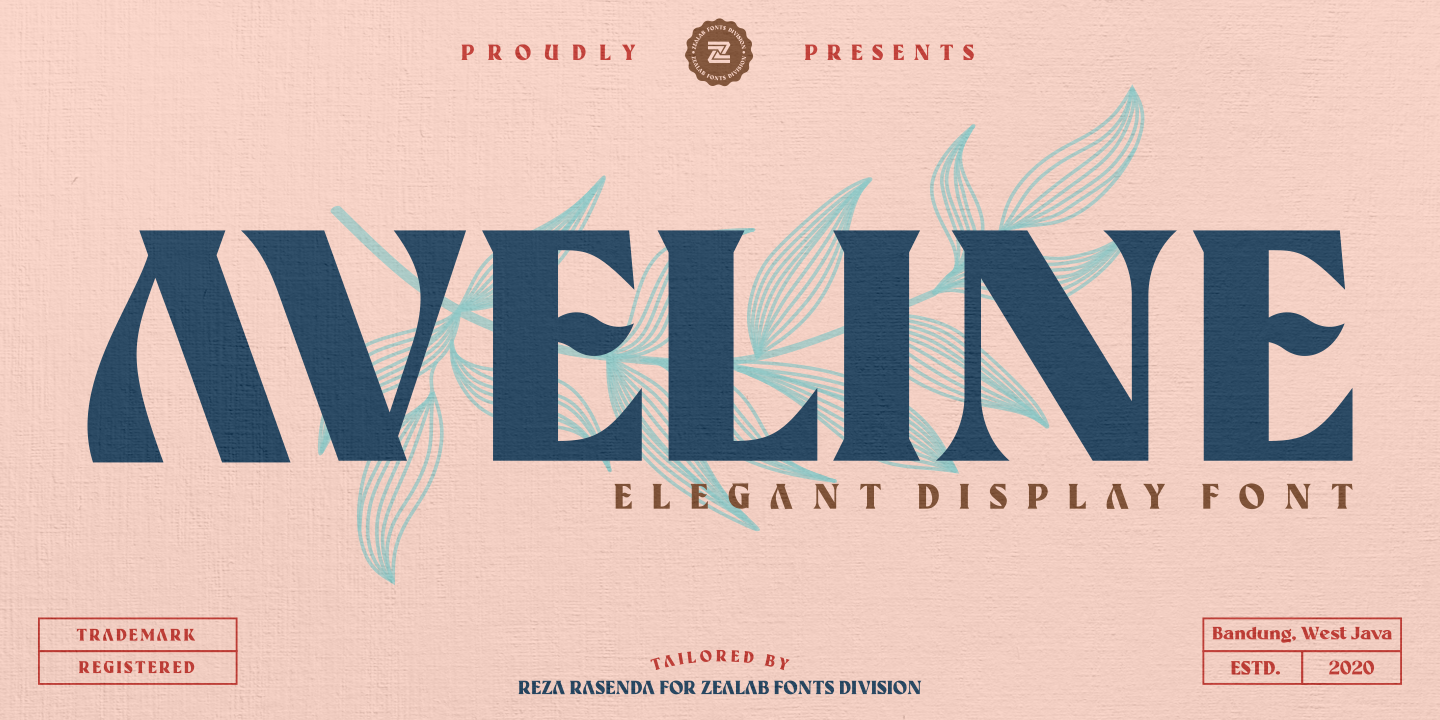
Aveline Font is perfect for romantic wedding invitations, feminine branding projects, beauty product packaging, fashion blogs, boutique logos, greeting cards, social media posts, book covers, and elegant poster designs.
What makes Aveline Font exciting is its graceful curves and delicate character details that evoke femininity and sophistication. The flowing letterforms create a sense of elegance and romance, making every word appear beautifully crafted and visually appealing.
Aveline Font family includes regular, bold, light, and script variations, plus decorative alternates and ligatures that provide endless creative possibilities for personalized typography designs.
Create stunning visual impact with the romantic charm of Aveline Font Free Download. This exquisite typeface captures the essence of feminine elegance while maintaining excellent readability across various design applications. The thoughtfully designed characters feature subtle decorative elements that add personality without compromising professionalism. Designers appreciate the font's versatility in both digital and print media, making it ideal for branding projects that require a touch of sophistication. The carefully balanced spacing and proportions ensure optimal performance in both headline and body text settings. Whether you're creating wedding materials, beauty brand identities, or lifestyle publications, this font delivers exceptional results that resonate with your target audience and enhance your creative vision.